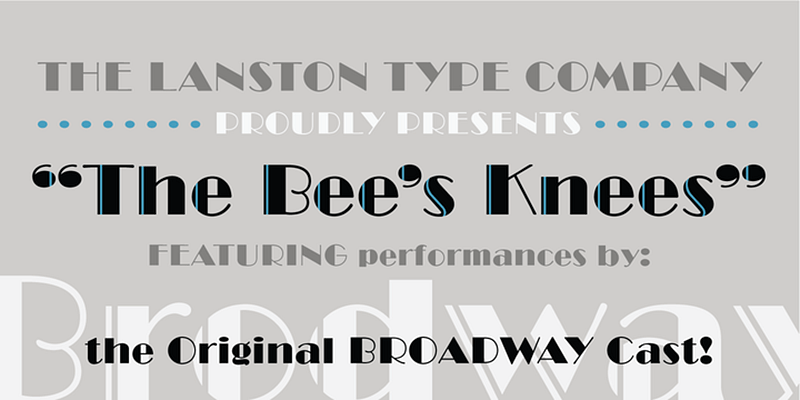
LTC Broadway, the iconic Art Deco face, was originally designed by Morris Fuller Benton for ATF in 1927. In the late 1920s Sol Hess added a lower case, and an engraved version for Lanston.
Lanston Type Co. (LTC) has roots back to the Lanston Monotype Company of 1887, founded by Tolbert Lanston, inventor of the Monotype casting machine. After parting ways with its English counterpart, LTC struggled and was sold several times to American Type Founders, Hartzel Machine Works, Mackenzie & Harris, and Gerald Giampa. P22 Type Foundry acquired it in 2004 and is now home to classic designs of Frederic W. Goudy and Sol Hess and newer contemporary masters Giampa, Jim Rimmer, and Dave Farey.